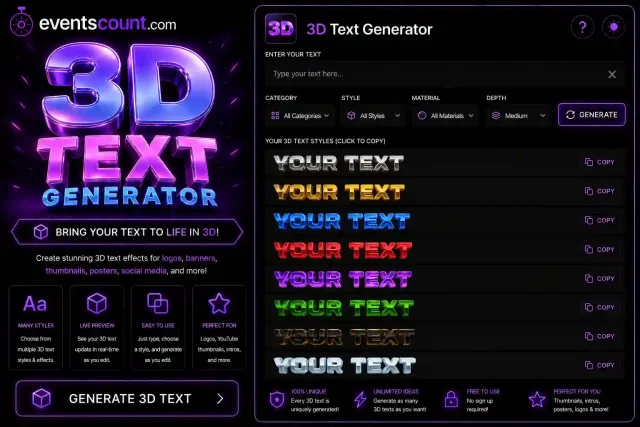
3D Text Generator
Create dimensional and bold text styles for titles, names, posts, and designs.
3D Text Generator
Create bold, dimensional, and eye-catching text with our 3D Text Generator. Whether you're designing a title, social media post, gaming name, logo idea, thumbnail text, or creative banner, 3D text gives ordinary words a stronger visual presence.
3D text is popular because it adds depth, shadow, perspective, and impact. Instead of flat lettering, your words can look more dynamic, professional, and attention-grabbing.
3D Font Generator
Our 3D Font Generator helps transform simple text into dimensional font styles that feel bold and modern. These styles are useful for creators, gamers, designers, marketers, and anyone who wants text that looks more powerful than standard lettering.
Use 3D fonts for usernames, titles, posters, profile names, thumbnails, and creative digital projects.
3D Letter Generator
The 3D Letter Generator creates individual letters and full words with a dimensional appearance. This is useful for initials, short names, monograms, display text, and decorative typography.
3D letters work especially well when you want a name or heading to feel more solid, bold, and visually memorable.
3D Text Creator
Use the 3D Text Creator to build stylish text for online content without needing advanced design skills. Enter your text, choose a style, and create a 3D-inspired result that can be used for creative projects and digital branding.
This tool is ideal for quick text ideas, title concepts, and visual inspiration.
3D Writing Generator
The 3D Writing Generator creates writing that appears deeper and more dimensional than normal text. This style is perfect for bold headings, gaming banners, YouTube thumbnails, social media graphics, and profile branding.
Dimensional writing can help important words stand out immediately.
Create 3D Text Online
You can Create 3D Text Online directly from your browser without downloading design software. Simply type your text and generate a 3D-style result in seconds.
This makes it easy to create quick text effects for content, designs, and online profiles.
Free 3D Text Generator
Whether you're working on a gaming profile, social media post, title idea, or logo concept, 3D fonts can add instant visual impact.
3D Text Illustrator
A 3D Text Illustrator helps create text that looks more artistic, dimensional, and design-focused. While professional illustration software can create advanced 3D typography, an online 3D text generator gives users a faster way to experiment with dimensional lettering ideas.
Use it as a starting point for logos, posters, thumbnails, banners, and creative projects.
3D Text Examples
- 3D Shadow Text
- Bold 3D Letters
- Perspective Text
- Neon 3D Text
- Chrome 3D Text
- Gaming 3D Title
- Retro 3D Font
- Cartoon 3D Letters
- Metal 3D Text
- Logo Style 3D Text
Where Can You Use 3D Text?
Tips for Creating Better 3D Text
- Use short words for stronger visual impact.
- Choose bold letters for better readability.
- Avoid long sentences in heavy 3D styles.
- Use contrast so the text remains clear.
- Match the 3D style to your project theme.
- Use shadows and depth carefully for a cleaner look.
Frequently Asked Questions
What is a 3D Text Generator?
A 3D Text Generator is an online tool that creates text with a dimensional or depth-inspired appearance for titles, names, graphics, and creative projects.
What is a 3D Font Generator?
A 3D Font Generator creates font styles that look bold, raised, shadowed, or dimensional compared to normal flat text.
Can I create 3D text online?
Yes. You can create 3D text online directly from your browser without installing professional design software.
What is a 3D Text Illustrator?
A 3D Text Illustrator is a tool or process used to create dimensional text effects for logos, posters, banners, and digital artwork.